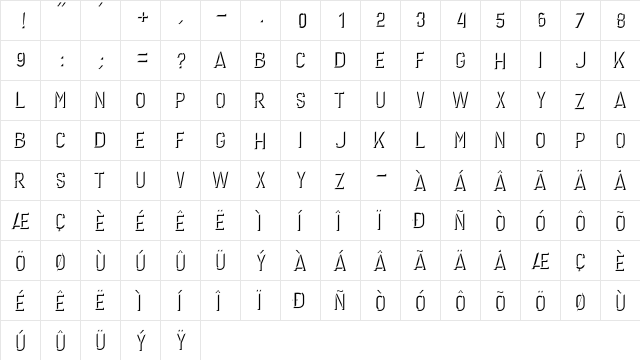
GERONIMO DARK Regular
| Designer | Lettersiro 2018 |
Design Context for GERONIMO DARK Typeface
GERONIMO DARK takes a measured approach to typography — its balanced proportions and neutral character make it a reliable workhorse for both digital and print work.